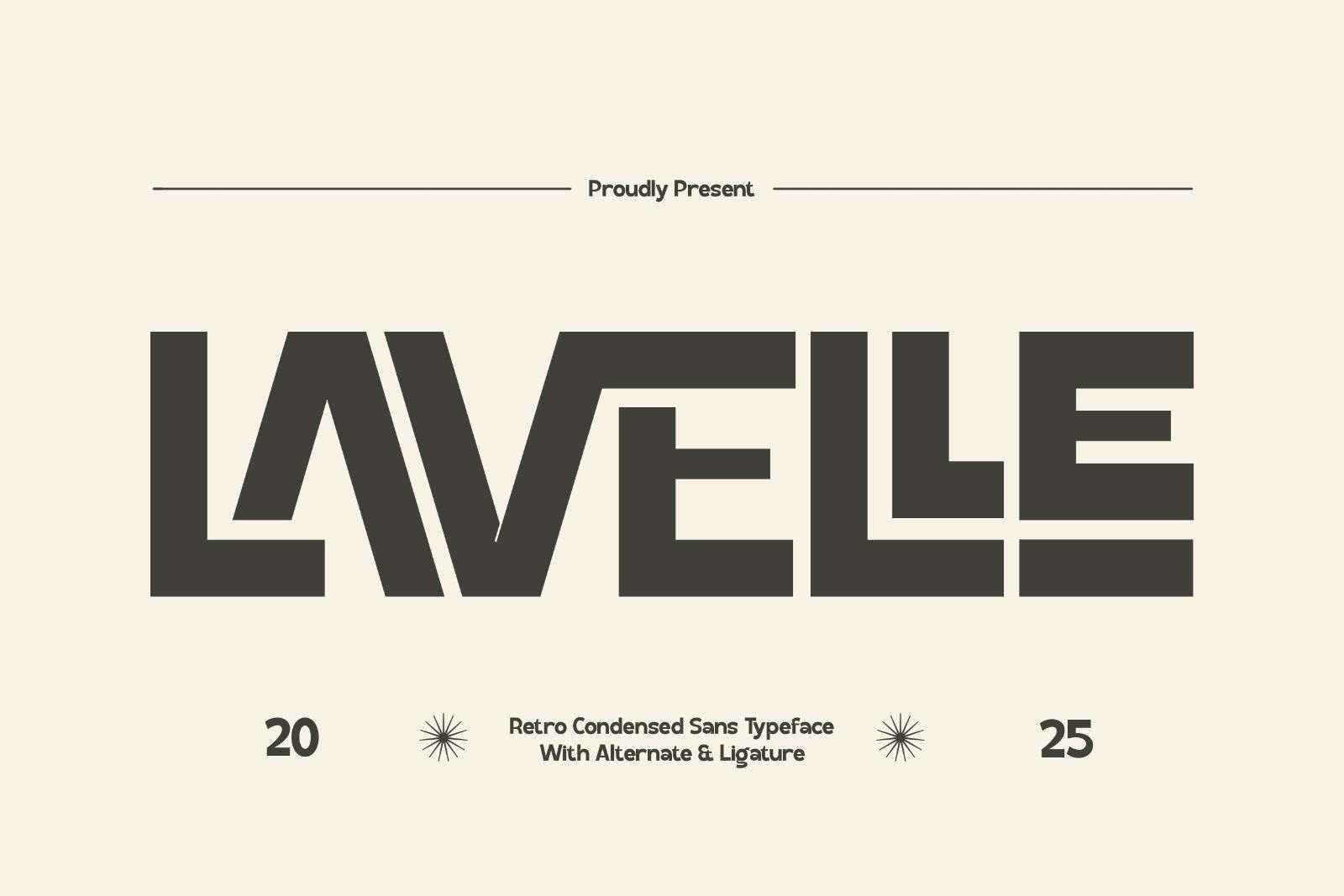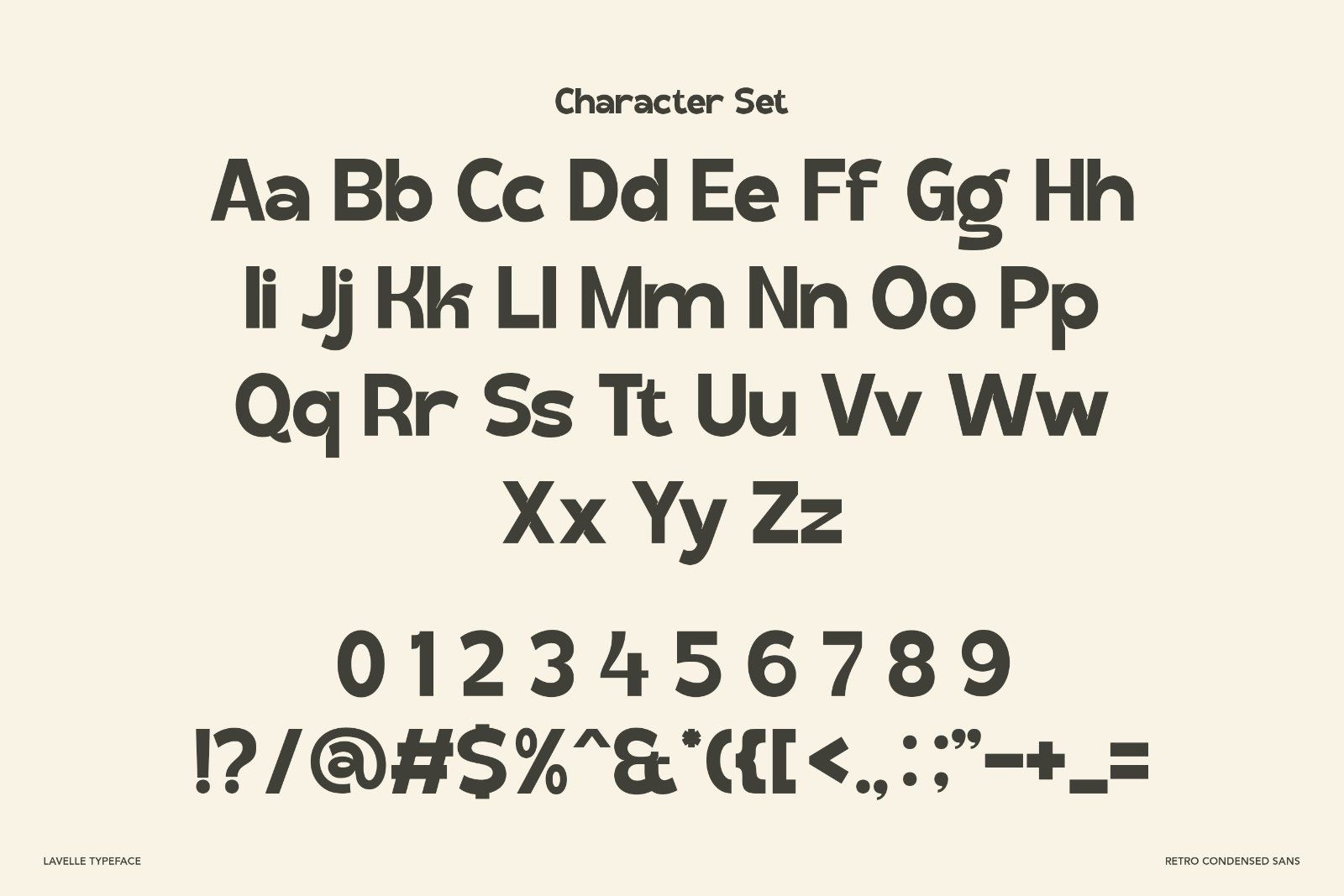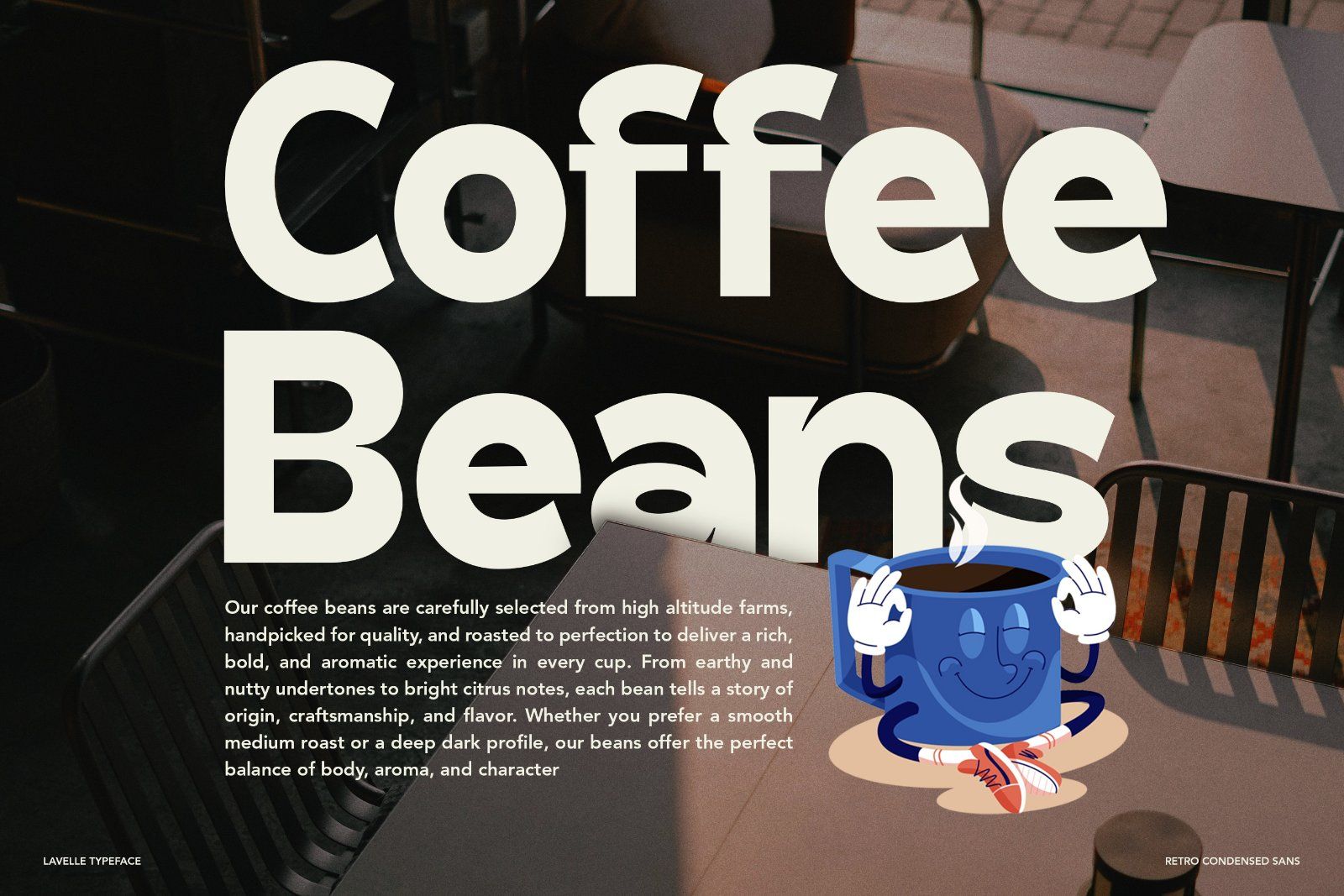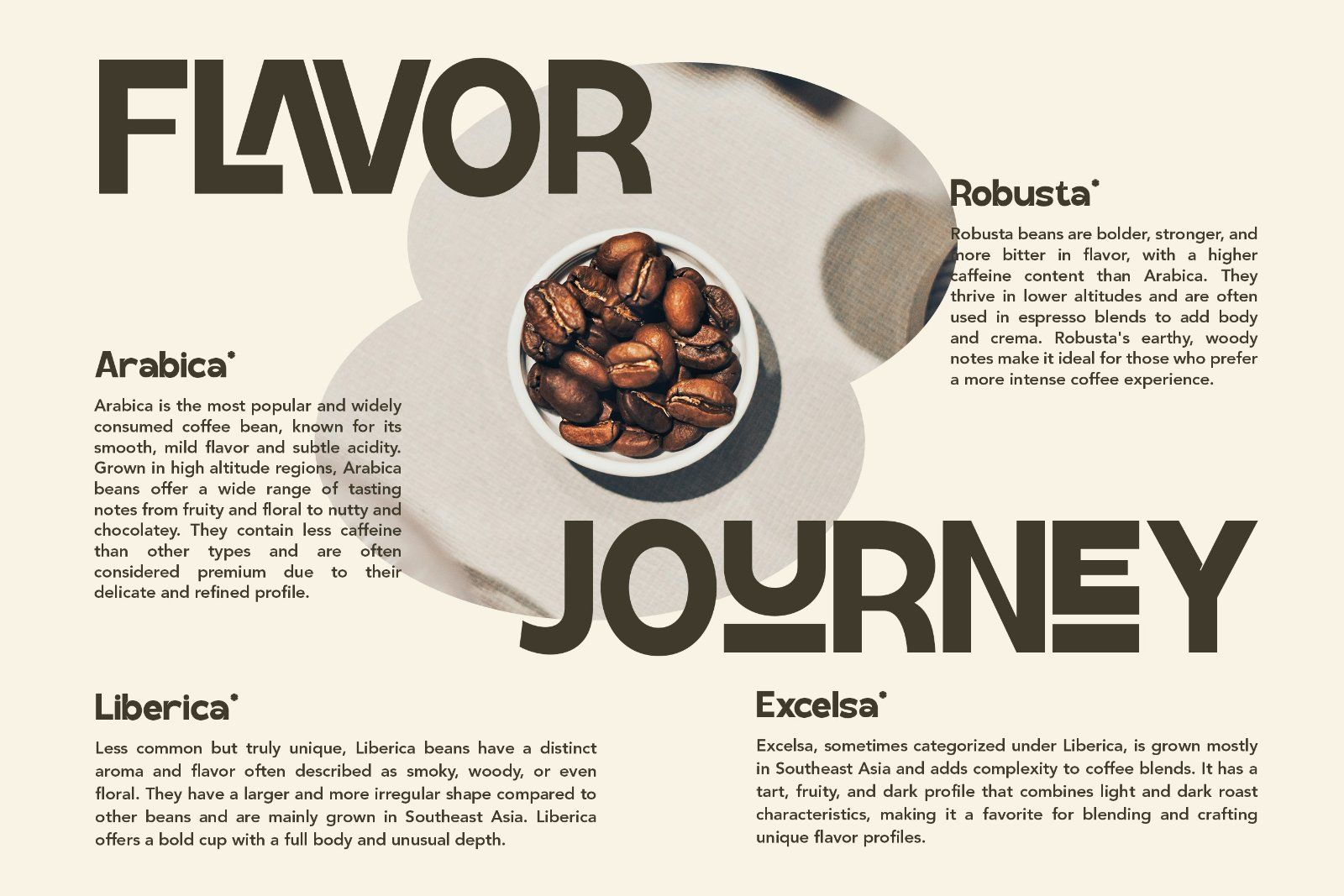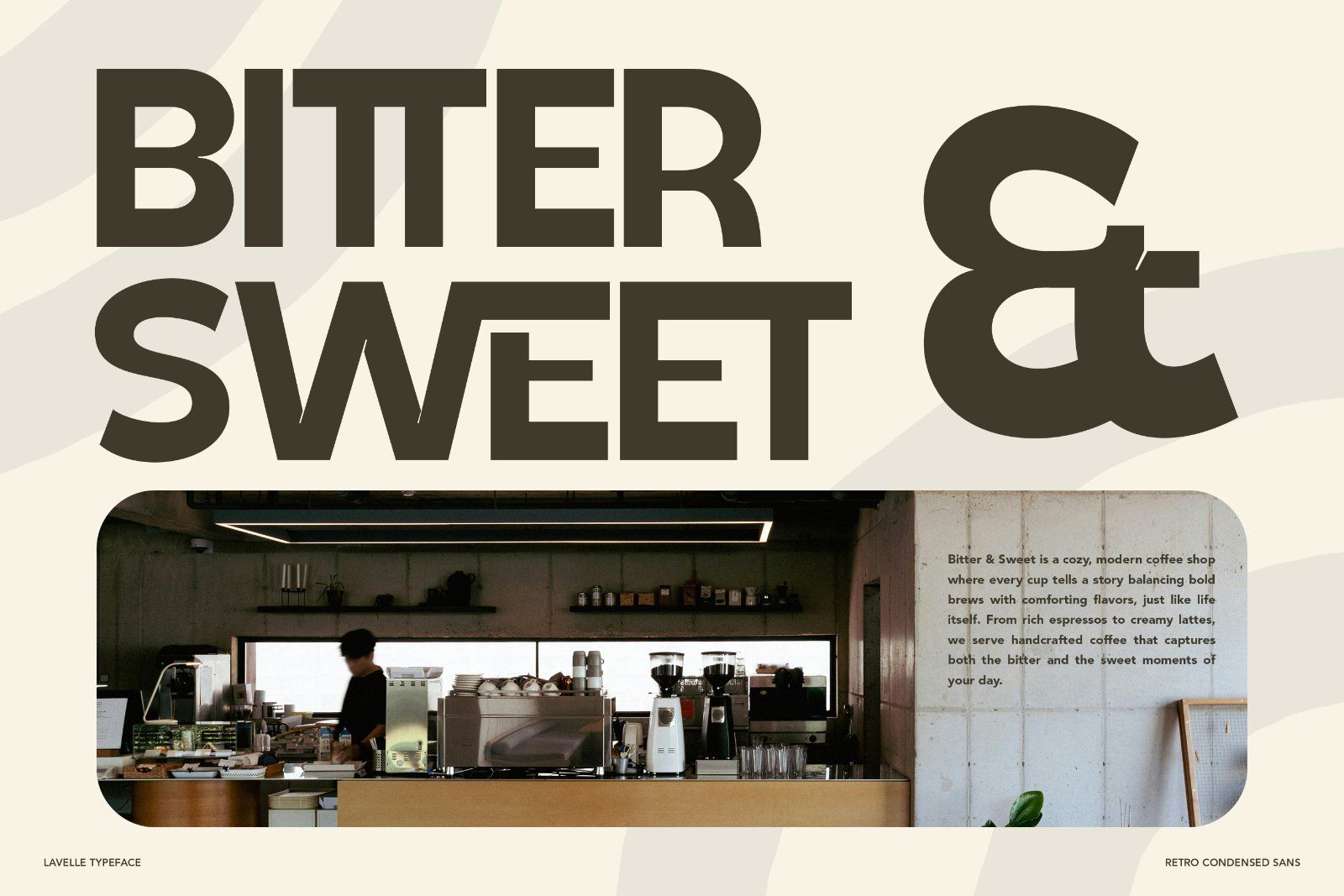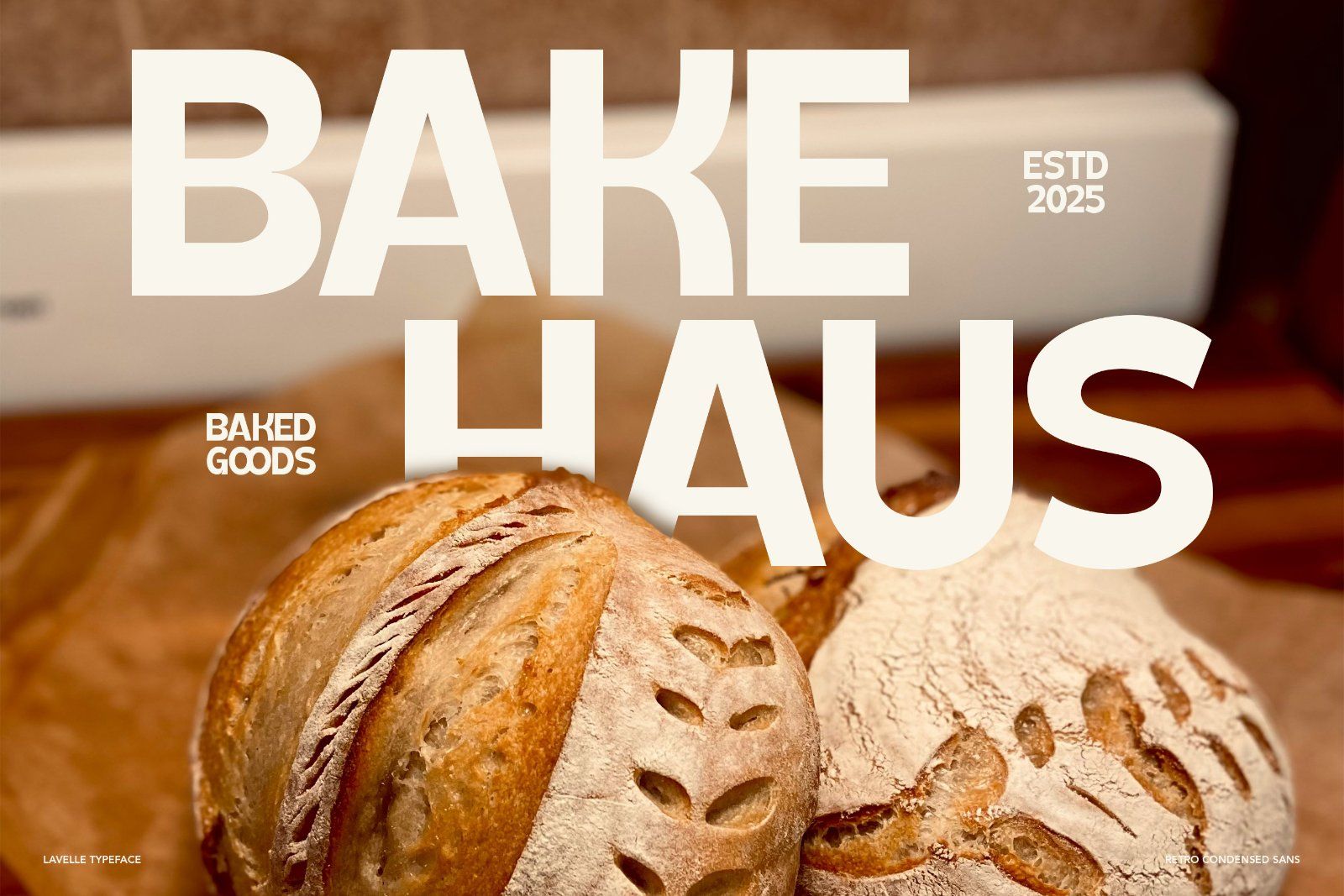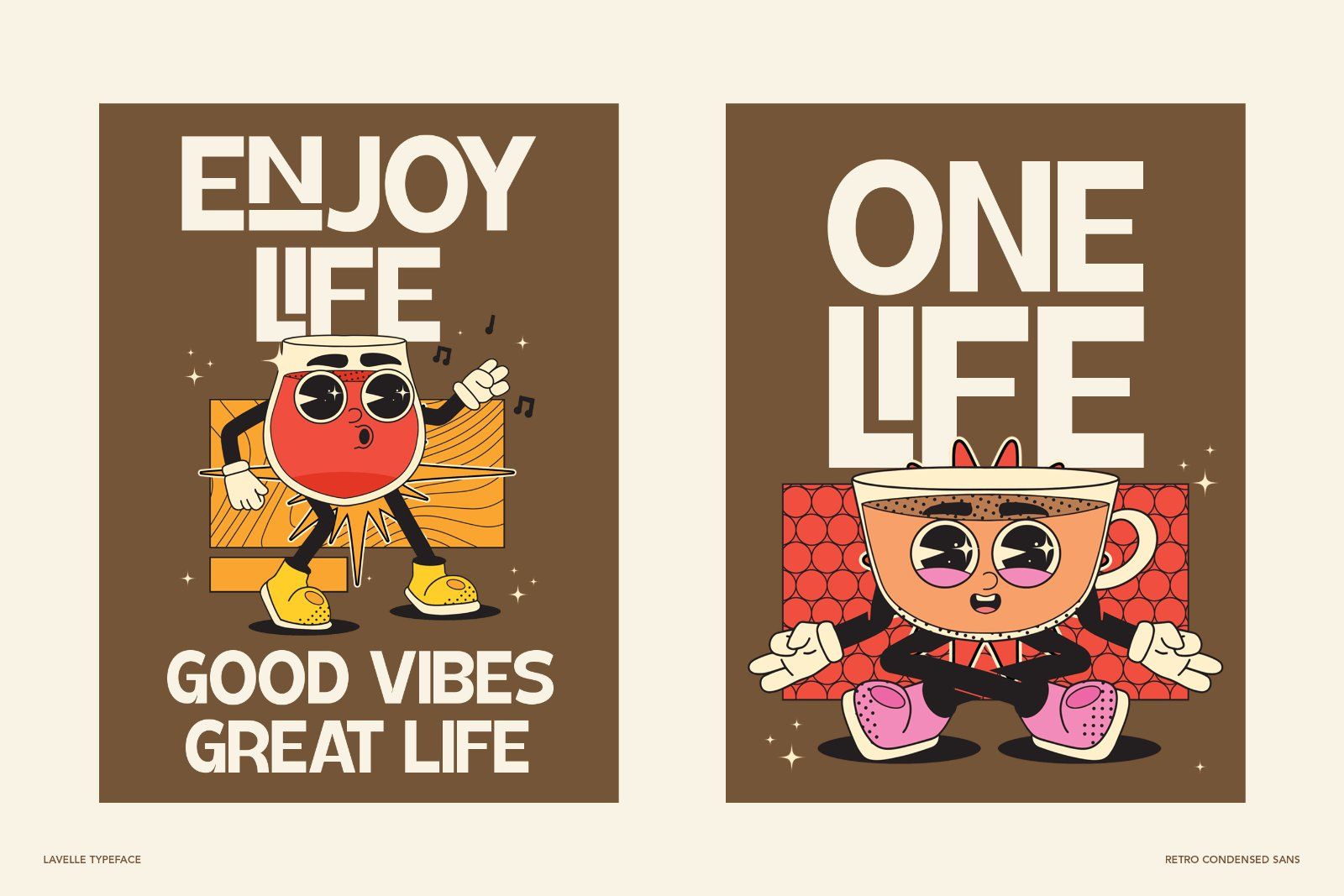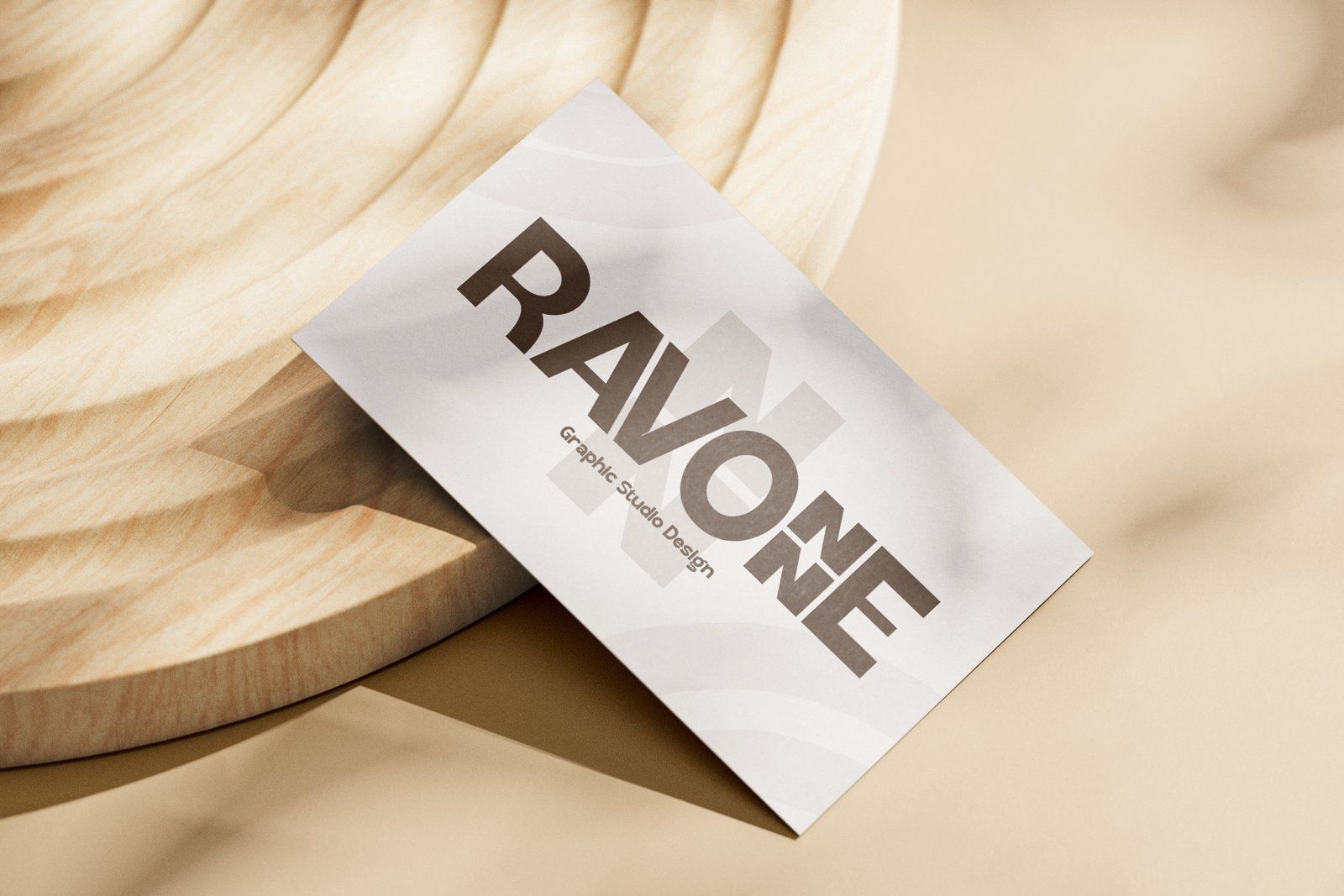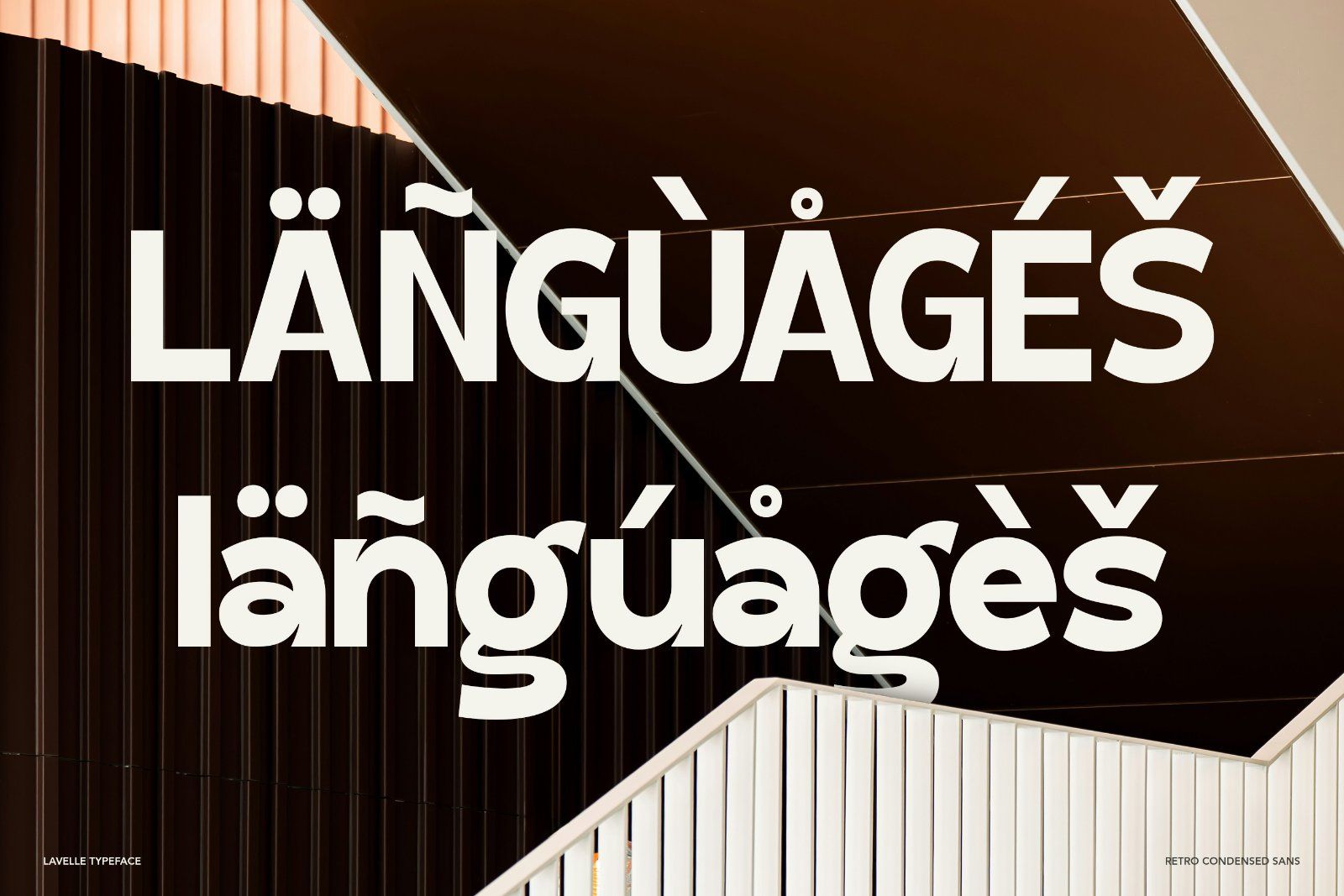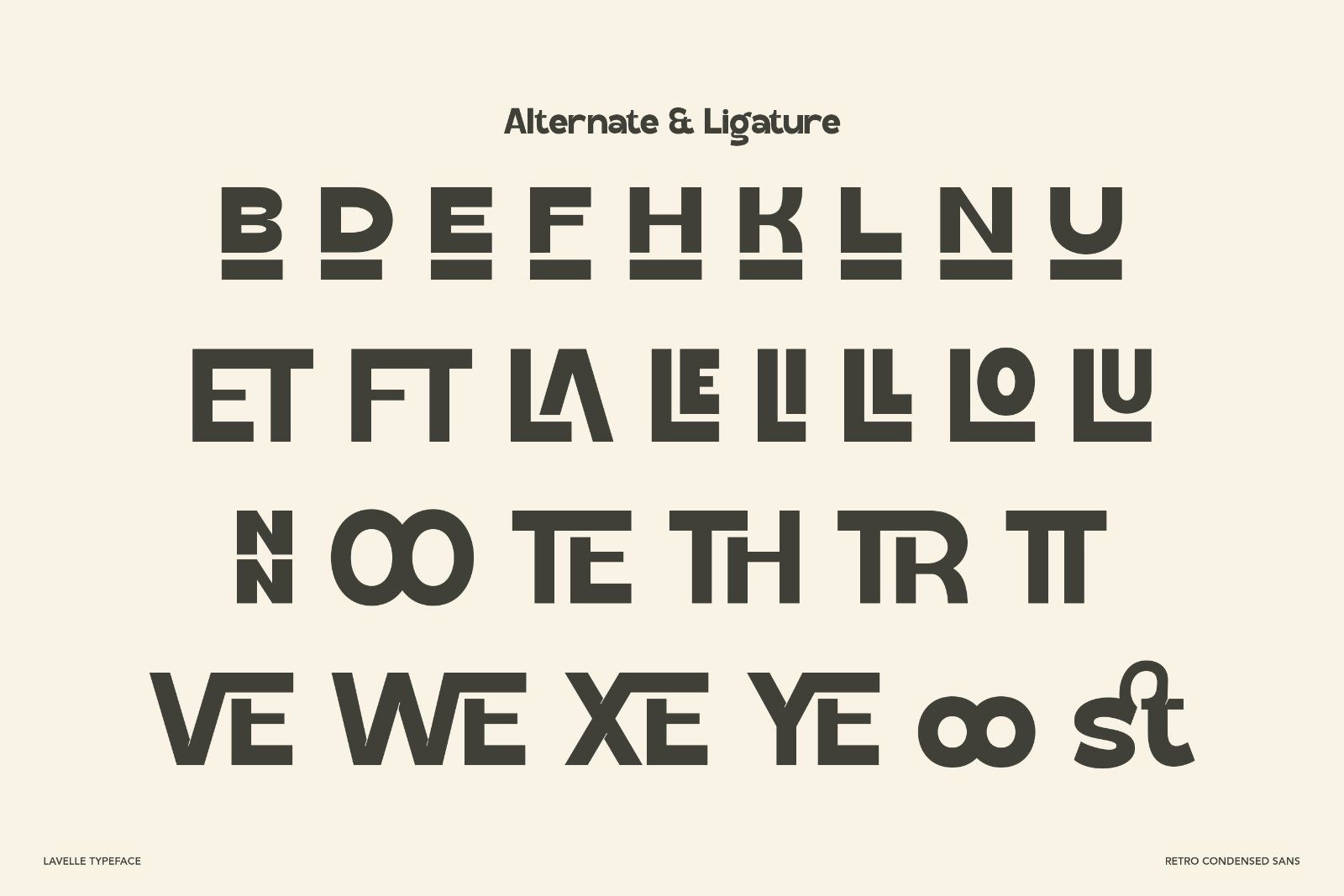
Lavelle is a bold retro condensed sans serif typeface that blends vintage charm with modern simplicity. Designed with strong geometric shapes, clean lines, and sharp edges, Lavelle captures the spirit of retro design while staying versatile for contemporary projects. Perfect for logos, posters, headlines, and branding, Lavelle adds a striking presence and timeless character to any design.